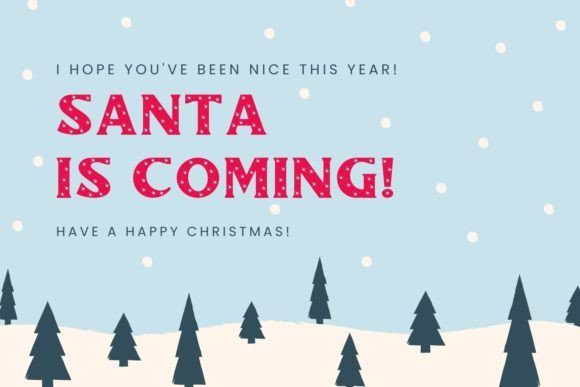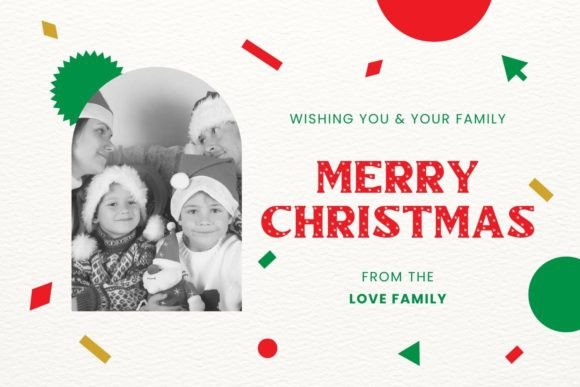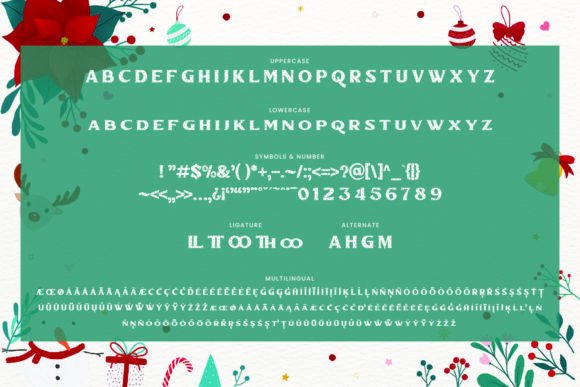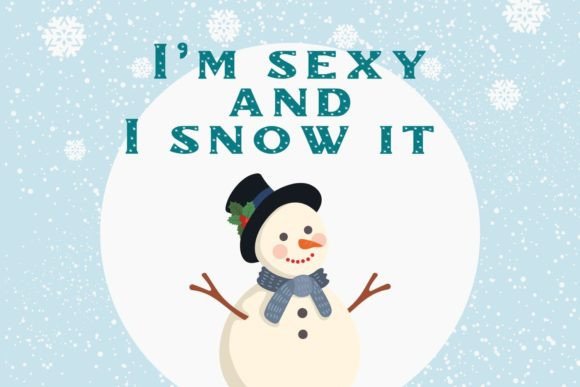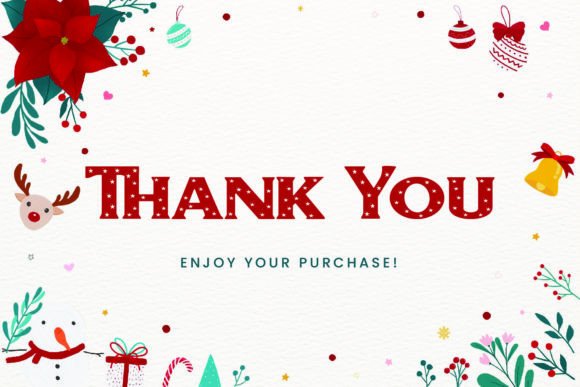
Happinest Jingle Font: The Ultimate Christmas Font for Your Design Projects
Are you looking for a font that can add a touch of magic to your design projects this Christmas season? Look no further than the Happinest Jingle Font! This amazing font features a star pattern that will make your text stand out and shine. In this article, we’ll take a closer look at the features and benefits of Happinest Jingle, and explore how you can use it to take your designs to the next level.
A Festive Font with Endless Possibilities
Happinest Jingle is a Christmas font that is perfect for designers and crafters who want to add a touch of festive cheer to their projects. With its star pattern design, this font is sure to impress and make your text stand out. Whether you’re working on a logo, signature, label, packaging design, quote, heading title, movie title, or any other project, Happinest Jingle is the perfect fit.
Key Features of Happinest Jingle Font
So, what makes Happinest Jingle so special? Here are some of its key features:
- Star Pattern Design: The font features a beautiful star pattern design that will add a touch of magic to your text.
- Alternative Characters: The font includes alternative characters that can be accessed using Open Type features such as Stylistic Sets, Stylistic Alternates, and Ligature.
- PUA Unicode: The font has been given PUA unicode, which means that all the alternate characters can be easily accessed in full.
Benefits of Using Happinest Jingle Font
So, why should you choose Happinest Jingle for your design projects? Here are some benefits:
- Unique and Festive Design: The font’s star pattern design is unique and festive, making it perfect for Christmas-themed projects.
- Versatile: The font can be used for a wide range of projects, from logos and signatures to labels and packaging designs.
- Easily Customizable: The font’s alternative characters and Open Type features make it easily customizable.
- PUA Unicode: The font’s PUA unicode makes it easy to access all the alternate characters.
Tips and Tricks for Using Happinest Jingle Font
Here are some tips and tricks for getting the most out of Happinest Jingle:
- Experiment with Different Sizes and Colors: Try out different sizes and colors to see what works best for your project.
- Use with Other Fonts: Combine Happinest Jingle with other fonts to create a unique look.
- Take Advantage of Open Type Features: Use Open Type features to access alternative characters and create a customized look.
In conclusion, Happinest Jingle Font is a fantastic Christmas font that is perfect for designers and crafters who want to add a touch of festive cheer to their projects. With its star pattern design, alternative characters, and Open Type features, this font is sure to impress. Whether you’re working on a logo, signature, label, packaging design, or any other project, Happinest Jingle is the perfect fit. So why wait? Download Happinest Jingle today and start creating your own magical designs!